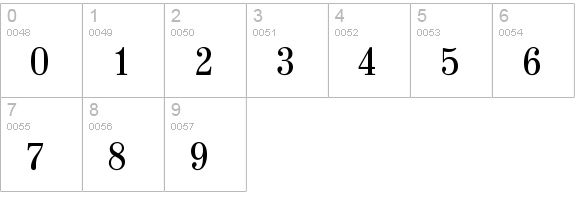
Valencia-Medium Font Details
Valencia-Medium is a balanced, medium-weight variant in the Valencia typeface family \xE2\x80\x94 well suited to sub-headlines, navigation, and balanced editorial work.
Introducing Valencia-Medium, a captivating and versatile font that is sure to make a lasting impression. This elegant typeface effortlessly combines modern sophistication with timeless charm, making it the perfect choice for a wide range of design projects. Valencia-Medium boasts a unique balance of graceful curves and clean lines, resulting in a harmonious and visually appealing aesthetic. Its medium weight strikes the perfect equilibrium between boldness and subtlety, making it suitable for both headlines and body text. With its wide range of language support, Valencia-Medium is a truly global font that can be used to convey your message effectively across different cultures and languages. Its legibility and versatility make it an ideal choice for various design applications, including branding, advertising, editorial design, packaging, and more. But what truly sets Valencia-Medium apart is the fact that it is freely available to download at FontsMarket.com. Yes, you read that right! This exceptional font can be obtained at no cost, allowing designers and creatives to unleash their imagination without any financial constraints. FontsMarket.com is your go-to source for high-quality fonts, and Valencia-Medium is just one of the many amazing options available. So, whether you're a seasoned designer looking to enhance your project or an aspiring artist searching for the perfect font to bring your vision to life, Valencia-Medium is here to inspire and elevate your work. Download it today from FontsMarket.com and let your creativity soar without any restrictions.